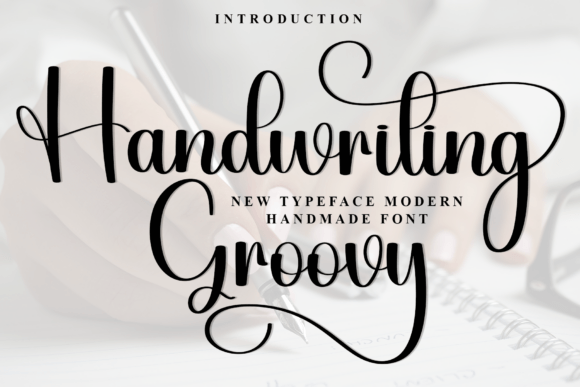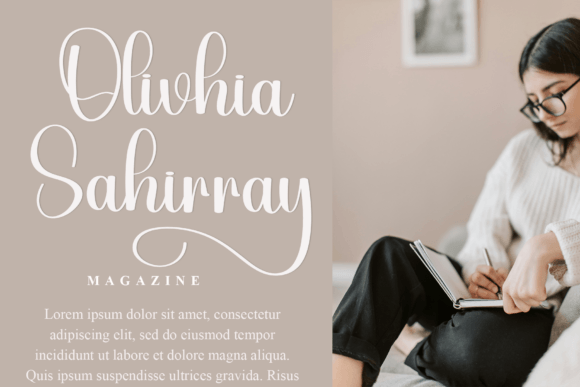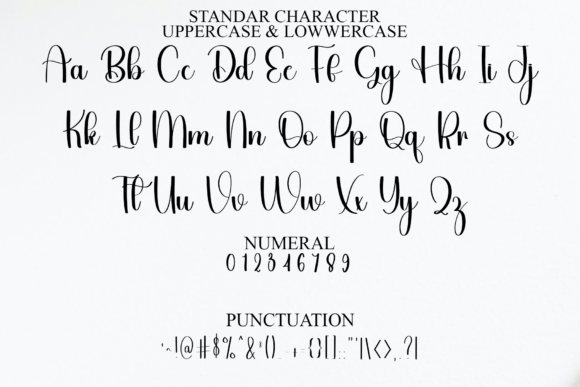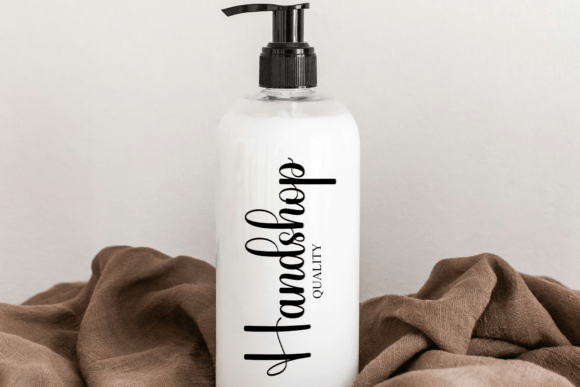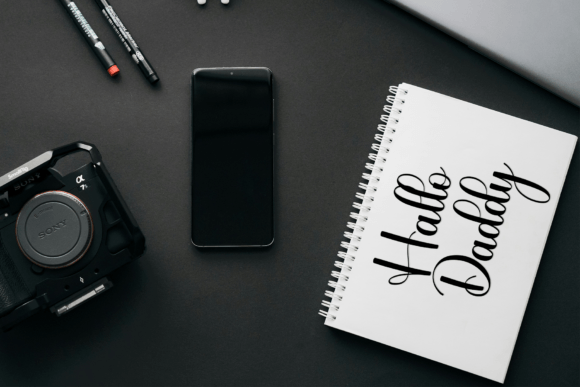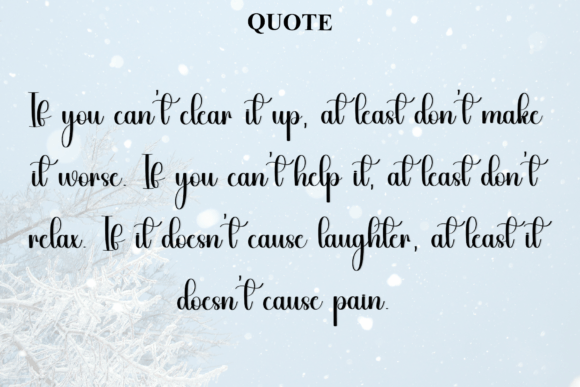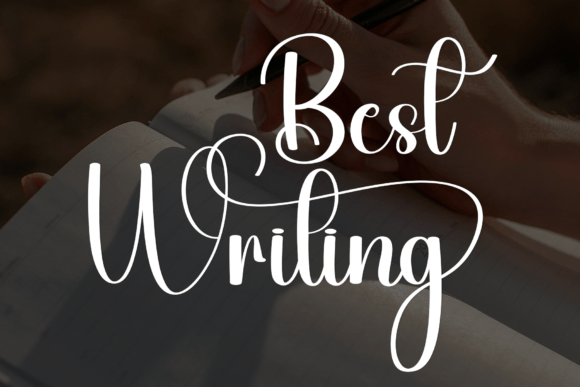
Unlock the Power of Handwriting Groovy Font
Have you ever been stuck in a creative rut, struggling to find the perfect font to bring your design to life? We’ve all been there – pouring over font libraries, trying to find that elusive spark of inspiration. For designers, the right font can be the difference between a design that’s merely good and one that’s truly great.
That’s where Handwriting Groovy Font comes in – a casual and creative font that exudes warmth and friendliness. With its round, playful strokes, it’s perfect for personal projects, invitations, and social media graphics. The font’s charming, hand-drawn aesthetic adds a fun and unique touch to any design, making it a valuable addition to any designer’s toolkit.
Handwriting Groovy Font Key Features
- Unique Characteristics: The Handwriting Groovy Font features a playful and casual style, making it perfect for creative projects and personal use. Its distinctive flair and irregularities give it a human touch, reminiscent of handwritten notes.
- Size: The font family includes a range of sizes, from 8 to 144 points, providing flexibility for use in various contexts, from small headings to large display text.
- Resolution: Designed for high-resolution displays, the Handwriting Groovy Font looks crisp and clear at resolutions up to 300 DPI, making it suitable for print and digital applications.
- Language Support: The font supports a wide range of languages, including Latin, Cyrillic, and Greek scripts, making it a versatile choice for multilingual projects.
Handwriting Groovy Font Review
When I first laid eyes on the Handwriting Groovy Font, I knew I had to give it a try. The font has a unique, playful vibe that’s perfect for adding a touch of whimsy to any design project.
- The font’s fluid, cursive lines make it perfect for titles, headings, and other text elements that need a bit of flair.
- The font is highly customizable, with a wide range of font sizes, colors, and styles to choose from.
- The font’s high legibility makes it easy to read, even at smaller font sizes.
- The font may not be suitable for formal or professional designs, as its playful vibe may come across as unprofessional.
- The font’s cursive lines may not be ideal for text-heavy designs or for use in situations where readability is a top priority.
Overall, I think the Handwriting Groovy Font is a great addition to any designer’s toolkit. While it may have some limitations, its unique style and high customizability make it perfect for adding a bit of personality to your designs.
To get the most out of the Handwriting Groovy Font, consider the following tips:
- Use it sparingly for emphasis or to add a personal touch.
- Combine it with other fonts for a unique and creative look.
- Experiment with different font sizes and styles to achieve the desired effect.
The Handwriting Groovy Font is commonly used for:
- Invitations and event graphics.
- Personalized stationery and greeting cards.
Alternatives to Handwriting Groovy Font for Designers
Great Vibes is a modern, cursive font that conveys a sense of elegance and sophistication. It’s perfect for use in titles, headings, and other design elements where a touch of whimsy is desired. When to use: For designs that require a mix of elegance and playfulness, such as magazine covers, wedding invitations, and advertising materials. Comparison: Great Vibes has a more refined and polished feel compared to Handwriting Groovy Font, which has a more casual and handwritten look.
Pacifico is a beautiful, elegant script font that exudes a sense of luxury and sophistication. It’s ideal for use in high-end designs, such as luxury branding, advertising, and packaging. When to use: For designs that require a touch of glamour and sophistication, such as luxury products, high-end fashion brands, and exclusive events. Comparison: Pacifico has a more refined and polished feel compared to Handwriting Groovy Font, with a more delicate and intricate design.